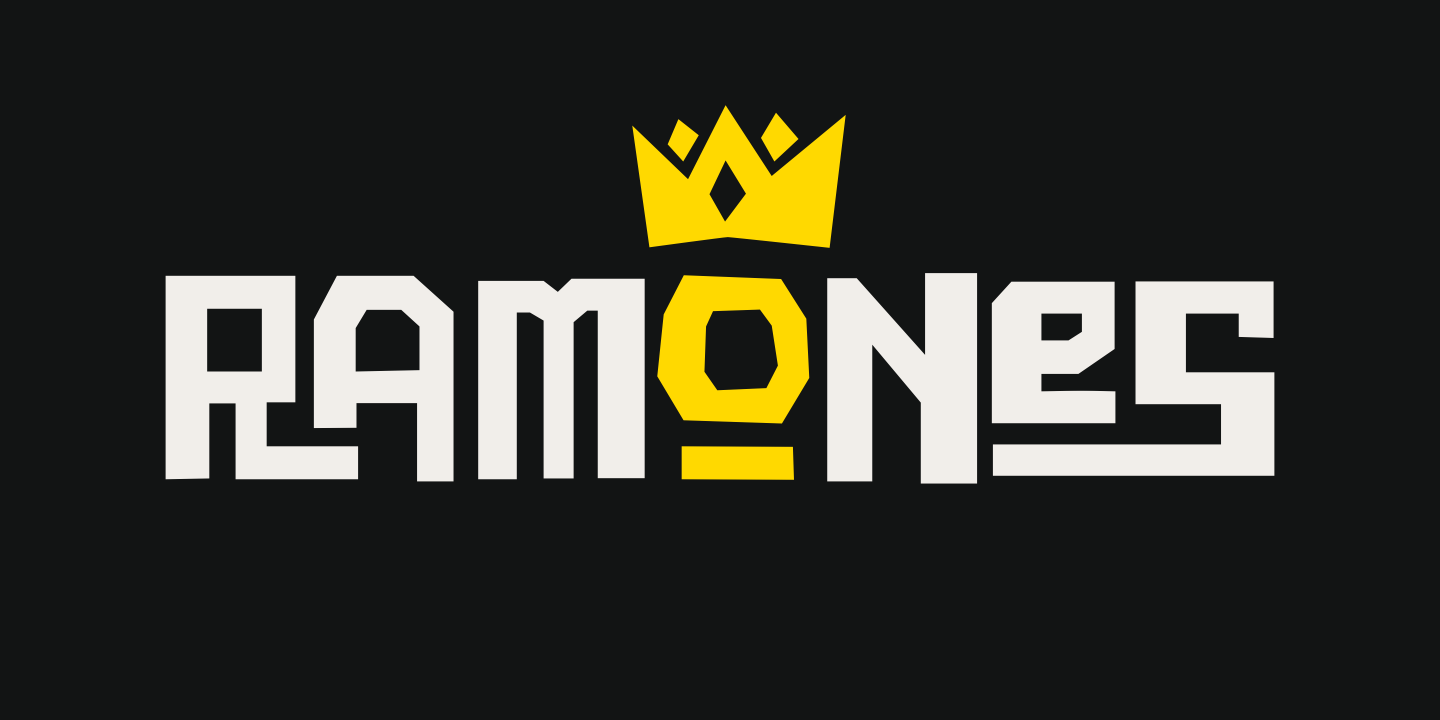
Ramones Font Free Download is a bold and edgy display typeface inspired by classic punk rock aesthetics and rebellious spirit. Its sharp, rough-edged letterforms and powerful stance make it an excellent choice for music posters, album covers, branding, apparel designs, and creative projects that demand a raw, energetic, and underground vibe.
The font’s rugged style ensures strong readability while delivering a dynamic and authentic rock-and-roll attitude across both print and digital formats. Ramones brings a sense of rebellion, freedom, and boldness, perfect for projects aiming to stand out with strong, uncompromising visuals.
Ramones is a must-have for designers looking to add an authentic punk rock edge and bold character to their creative projects.